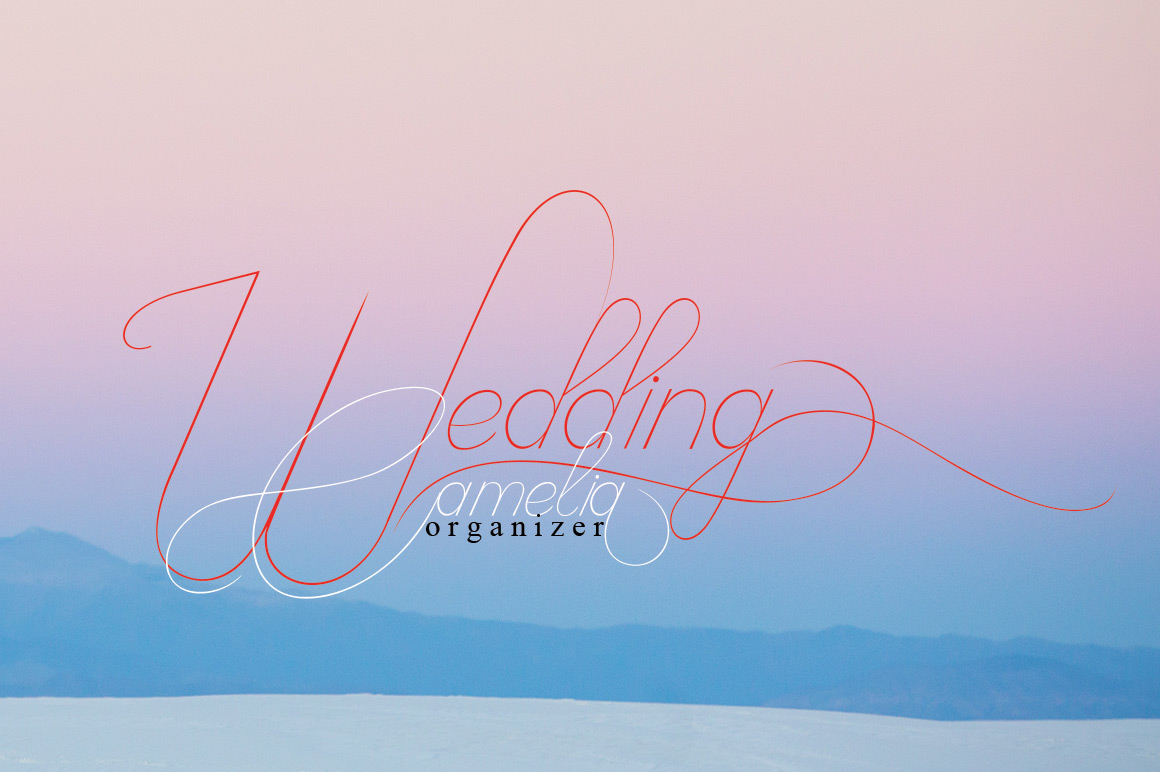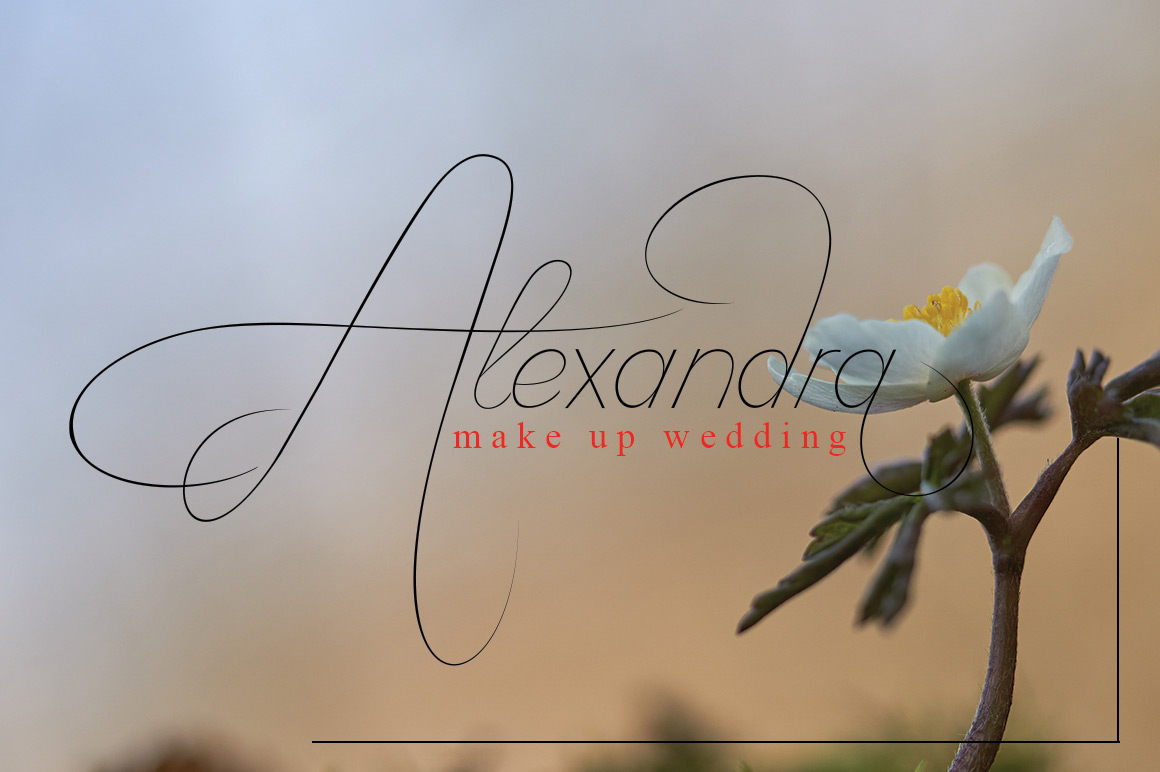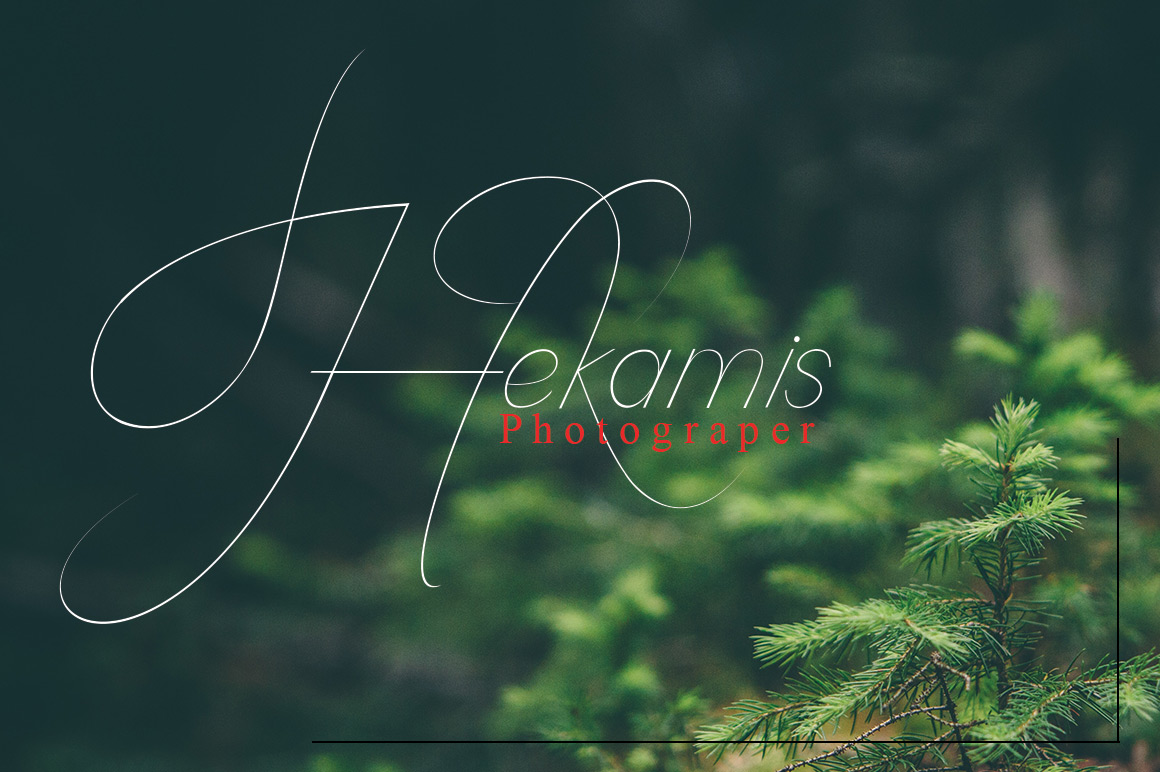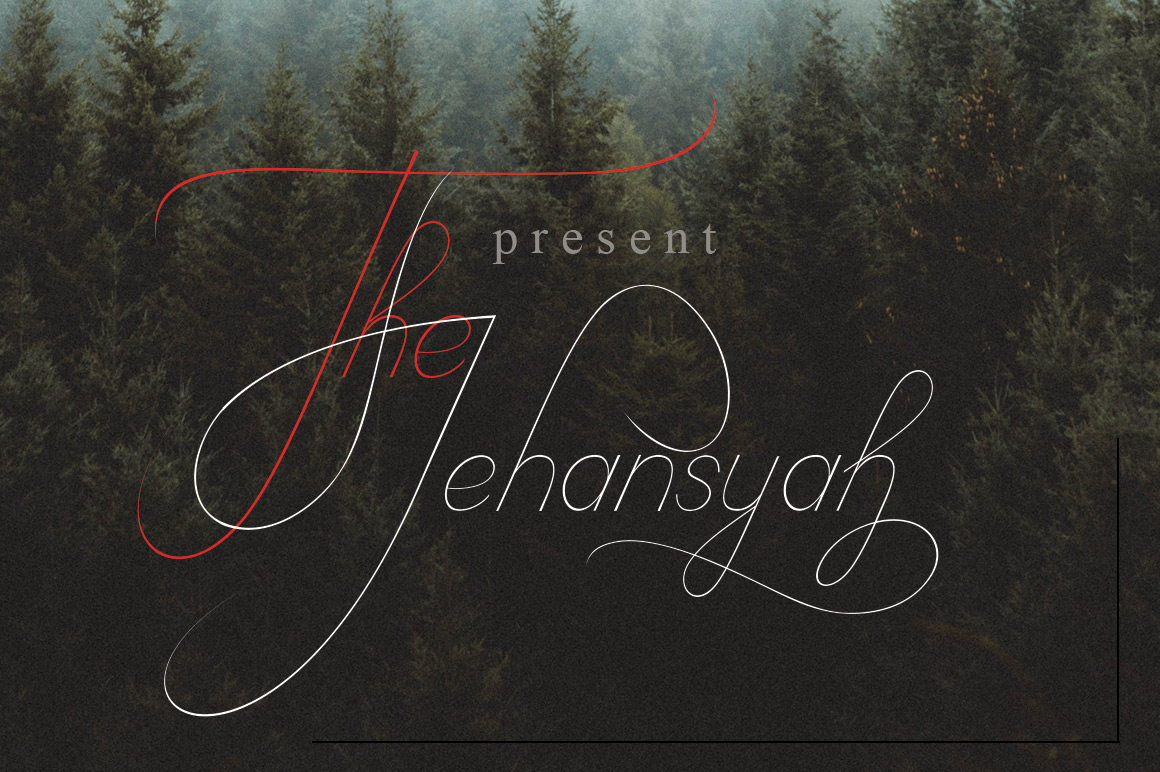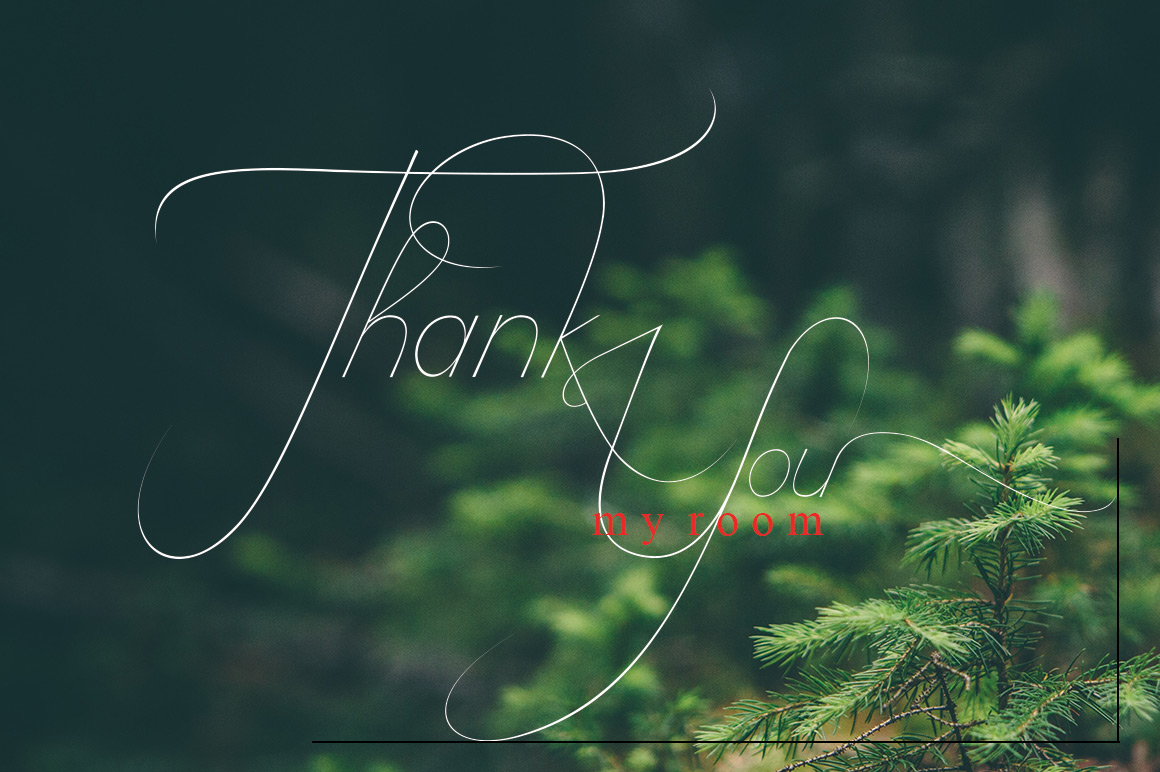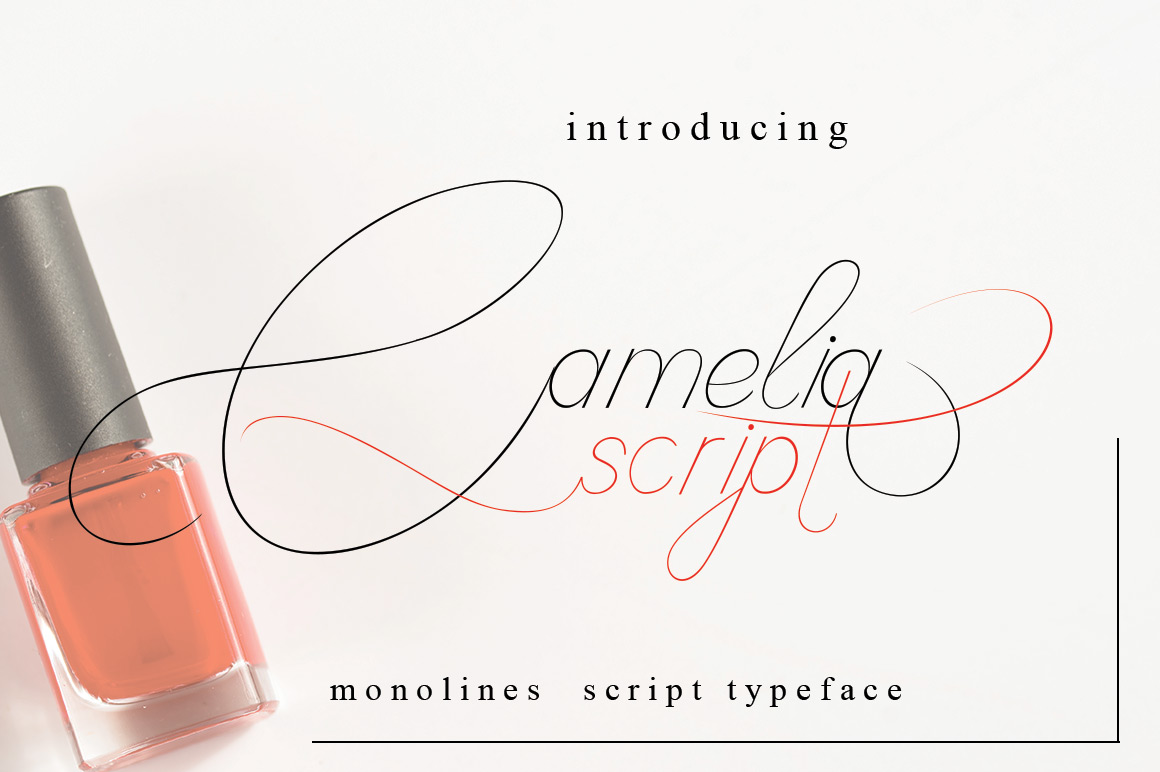
Camelia Script Font
amelia Script This font was designed by handwriting, and it has a modern
and unique forms of calligraphy, the writing style is very natural and multiple
language support.
Languages supported: Breton, Catalan, Czech,
Danish, Estonian,French, German, Hungarian, Icelandic, Italian, Romanian,
Scottish Gaelic, Slovak, Latvian, Lithuanian, Norwegian, English, Finnish,
Polish, Portuguese, Slovenian, Spanish, Swedish, Turkish, Welsh. Basically, all
european languages that are based on latin alphabet.